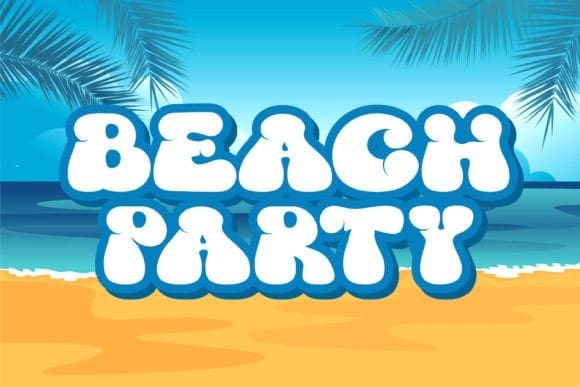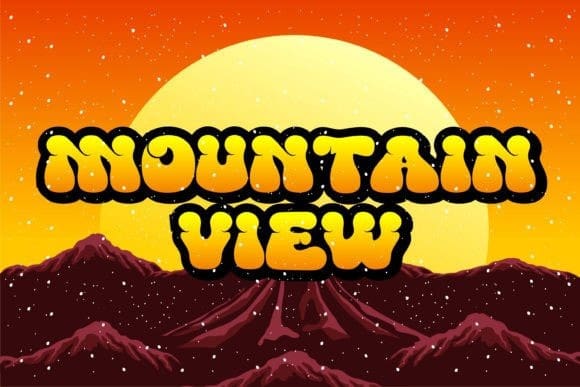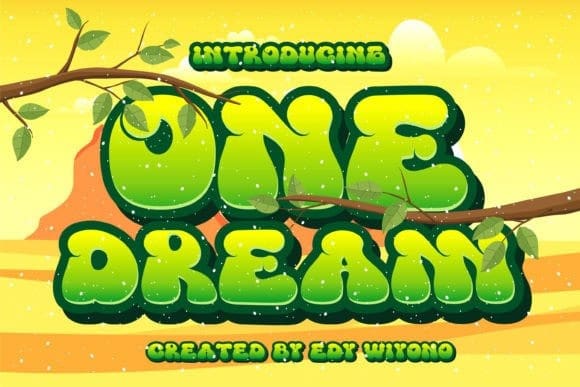
One Dream Font
One Dream Font is a retro-inspired display font with a fun and playful vibe. Its bold, rounded letters feature a quirky 70s-style design, with a touch of psychedelic flair. This font is perfect for adding a retro twist to any project, from posters to branding materials. Its unique style is sure to grab attention and bring a smile to viewers’ faces.